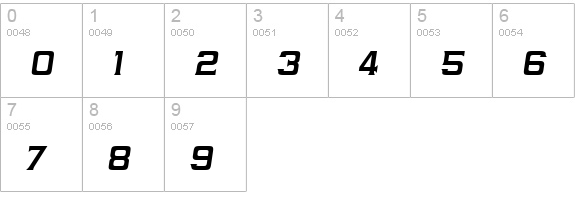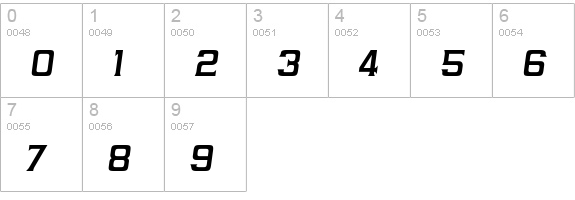
Vibrocentric Bold Italic Font Details
Vibrocentric Bold Italic is a strong, high-contrast, italic variant in the Vibrocentric typeface family \xE2\x80\x94 well suited to headlines, attention-grabbing titles, and strong calls-to-action.
Vibrocentric Bold Italic font is a captivating and dynamic typeface that exudes an aura of energy and modernity. Its bold and italicized design adds a touch of sophistication and uniqueness to any project, making it perfect for attention-grabbing headlines, striking logos, or stylish quotes. This font effortlessly combines sleek lines with subtle curves, resulting in a visually stunning and balanced composition. The strong and confident strokes of the letters create a sense of movement and vitality, capturing the viewer's attention and leaving a lasting impression. Vibrocentric Bold Italic font is not only visually appealing but also versatile, suitable for a wide range of design applications. Whether you are working on a branding project, a magazine layout, or a website design, this font will elevate your work to new heights. One of the best things about Vibrocentric Bold Italic font is that it is freely available to download at FontsMarket.com. This means that you can unleash your creativity without any limitations, using this captivating typeface for both personal and commercial projects. With just a few clicks, you can access this font and start incorporating its bold and italicized charm into your designs. Whether you are a professional designer or a passionate enthusiast, Vibrocentric Bold Italic font is a must-have in your font library. Its sleek and modern design combined with the freedom to use it in any project makes it an invaluable asset. Download Vibrocentric Bold Italic font today and let your creativity soar.